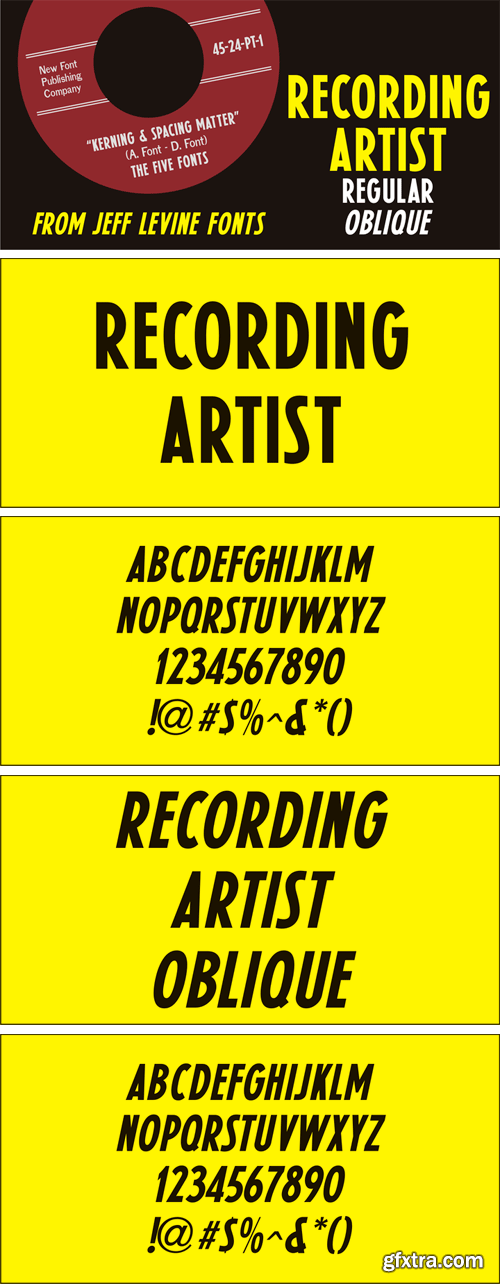
When 45 RPM records were the norm for a teenager’s music collection in the 1950s and 1960s, many discs had their labels printed by letterpress. Some record companies utilized a bold, condensed typeface set in all caps for the song’s title and other pertinent information.